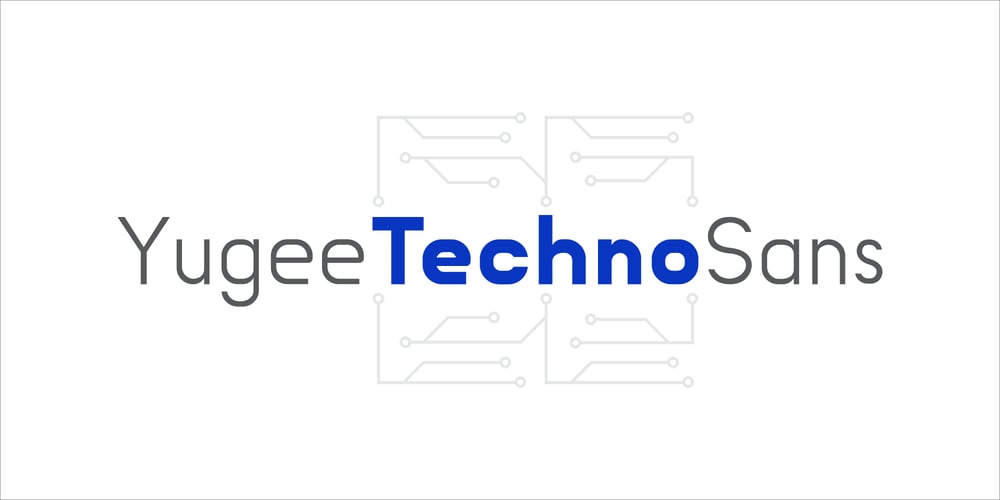
Yugee Techno Sans
Yugee Techno Sans font
Yugee Techno Sans Font Family was designed by Pratik Mevada and published by Pmfonts. Yugee Techno Sans contains 4 styles and family package options. Yugee Techno Sans are the fonts inspired by the pace of growth of our current technology. Created in a way that it works as display text as well as paragraph text. The fonts looks great at all sizes and with different spacing. The font family inlcludes 4 different font weights that suits your needs.